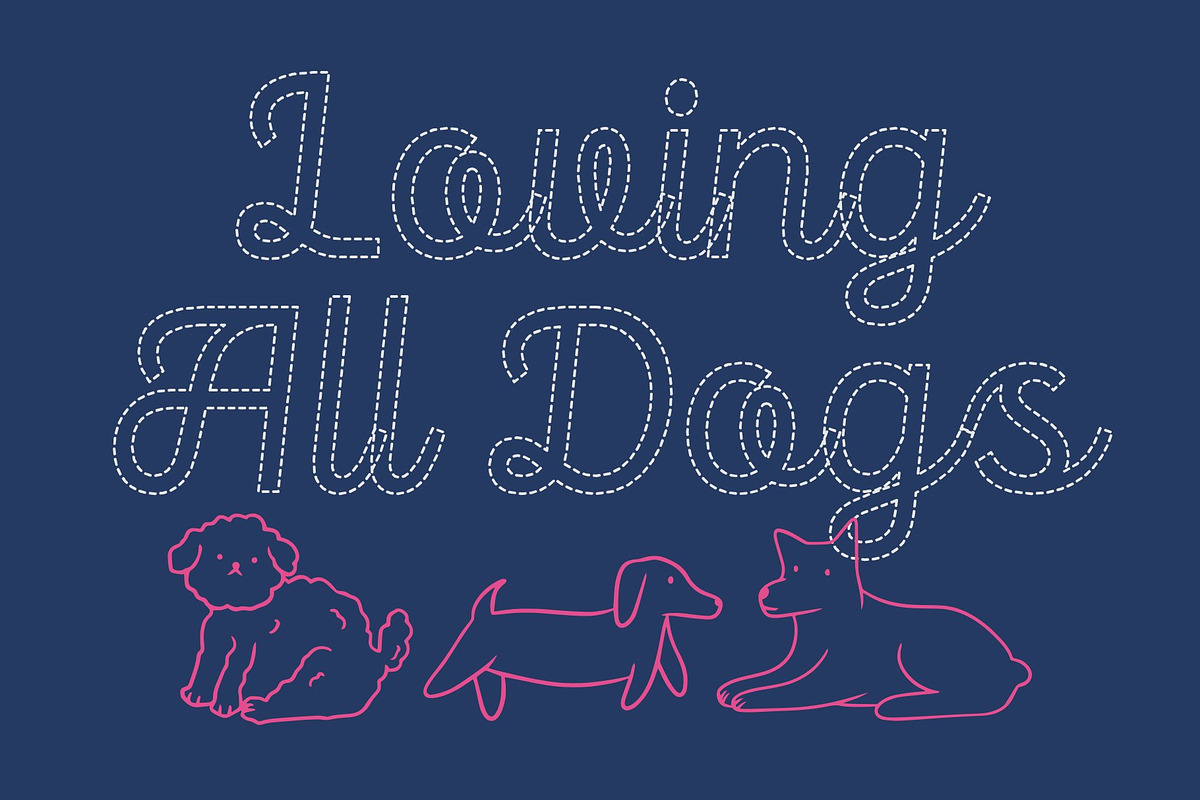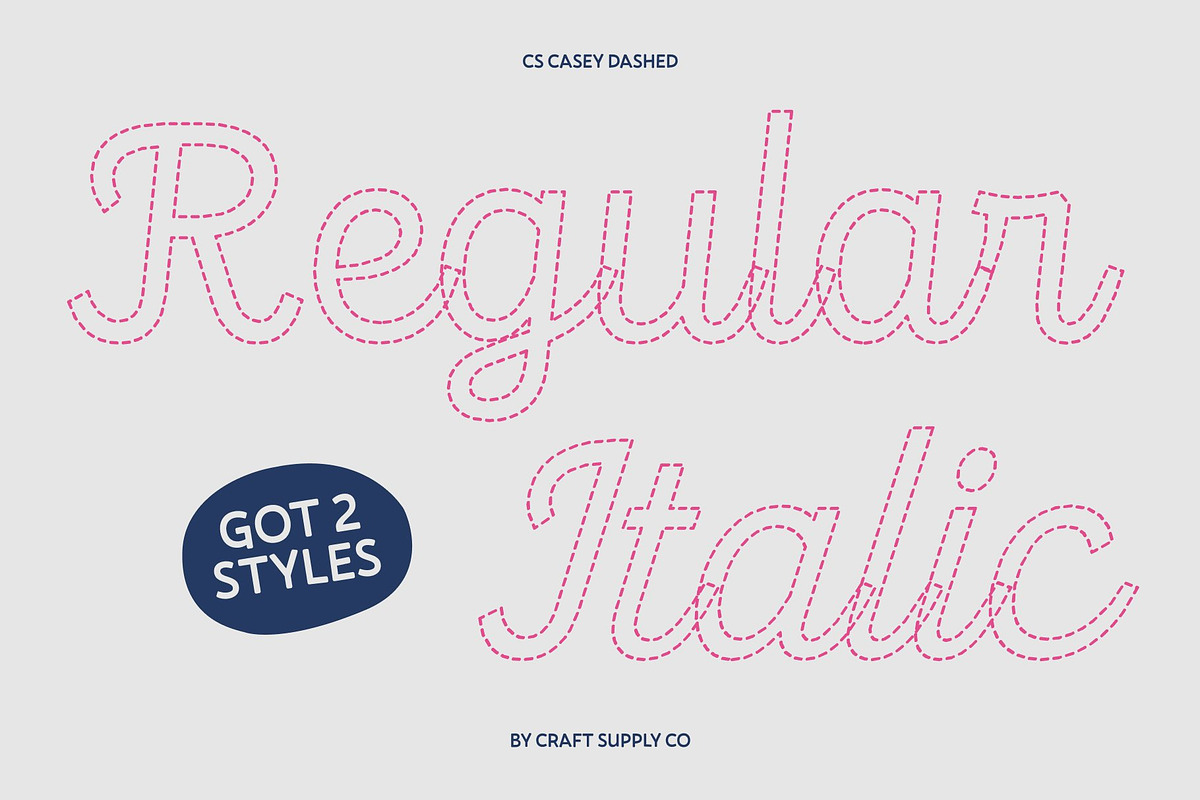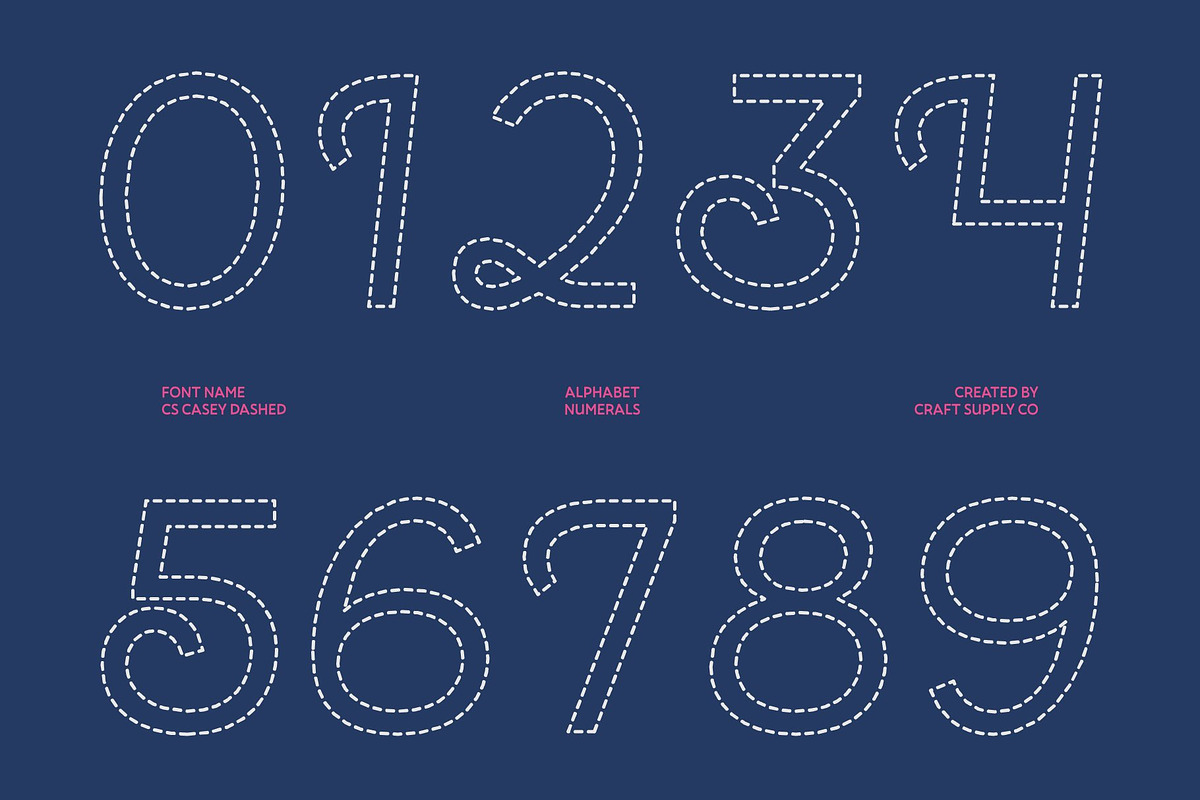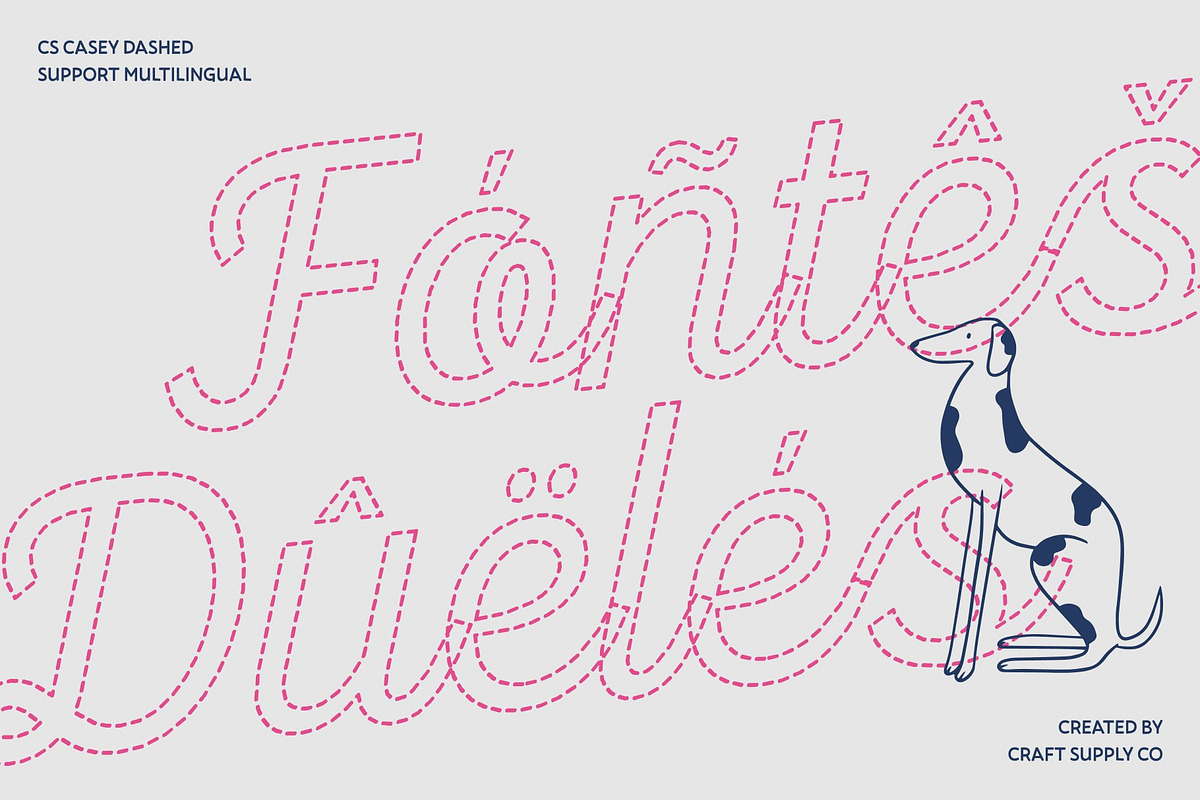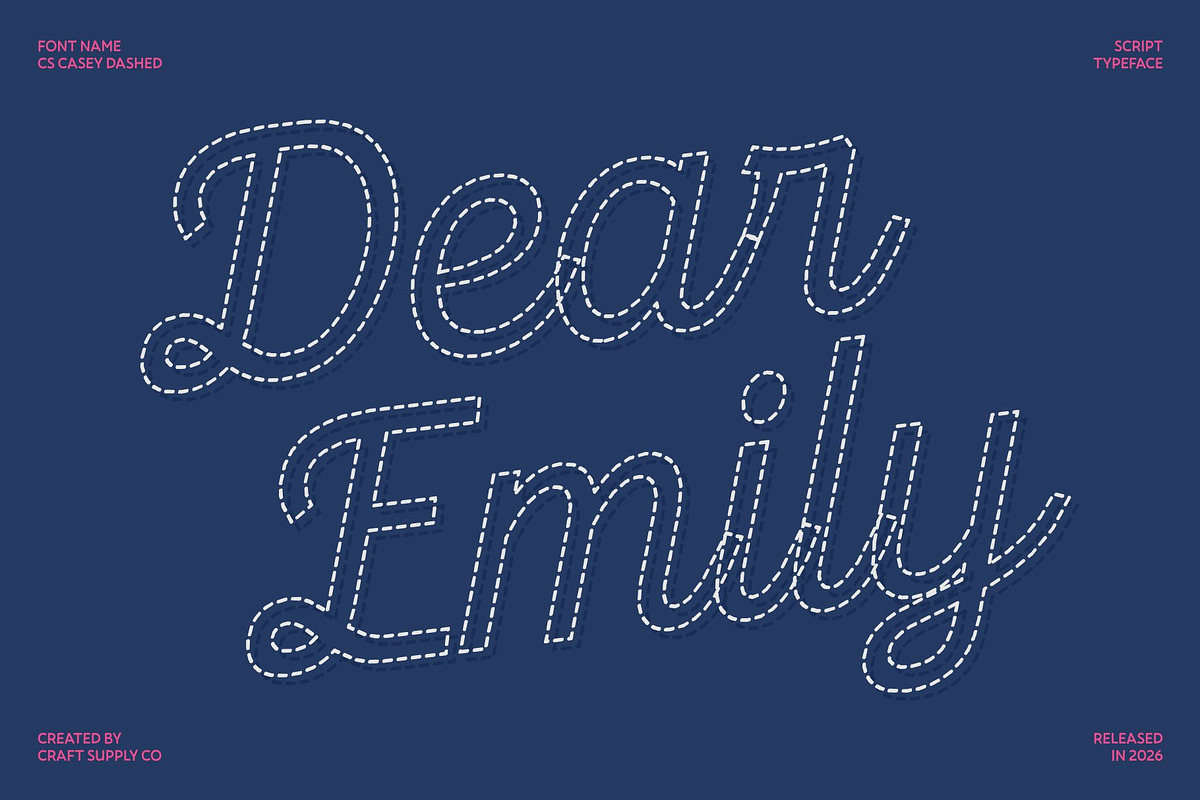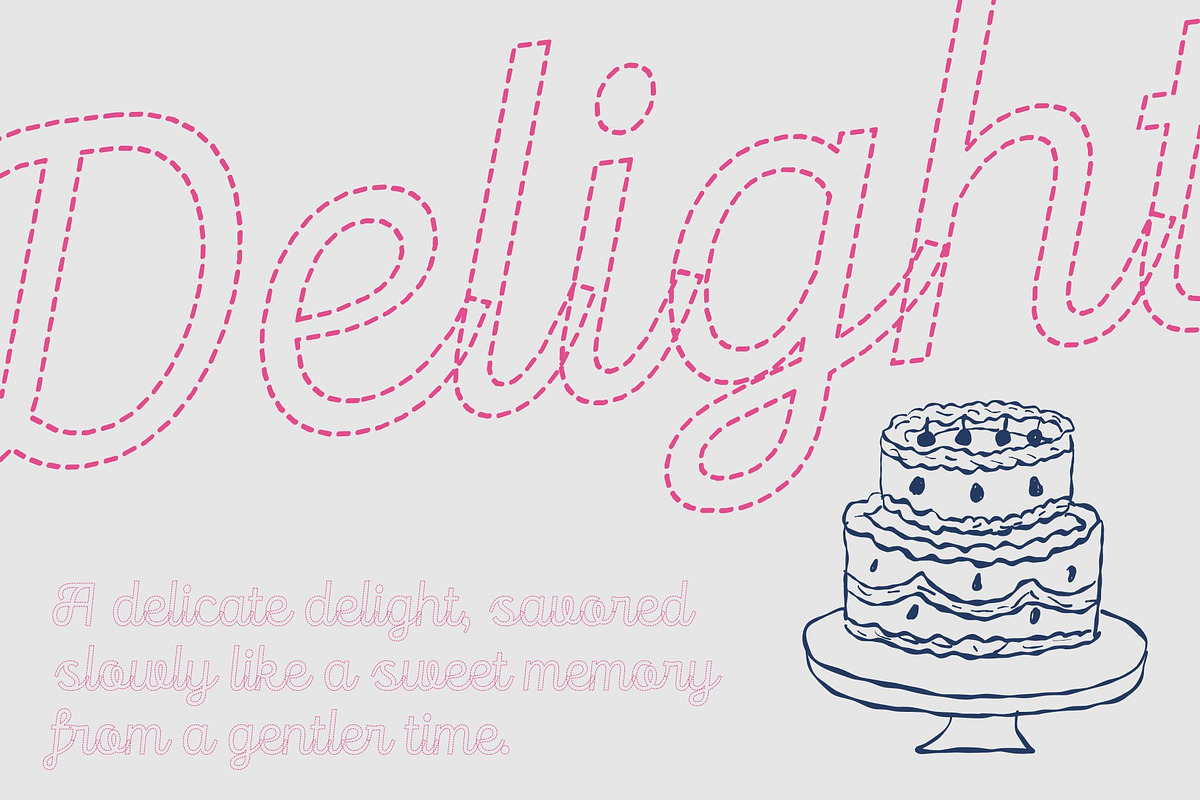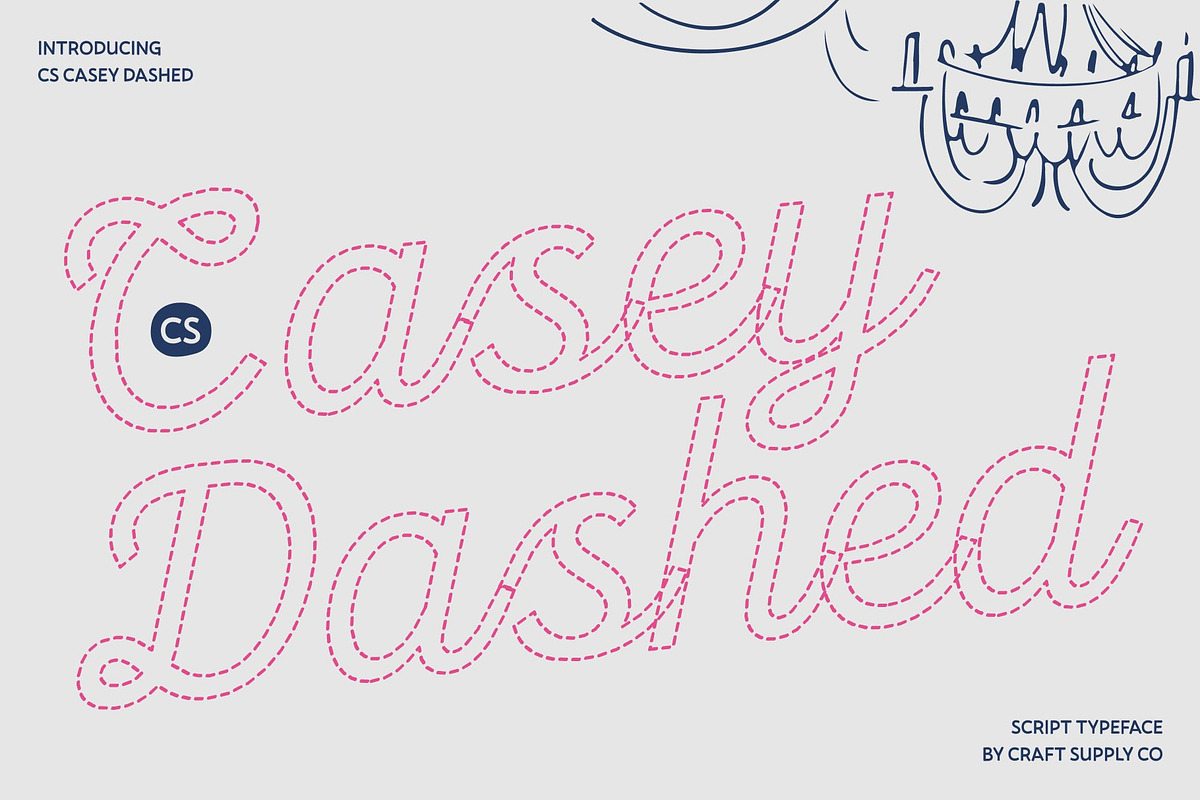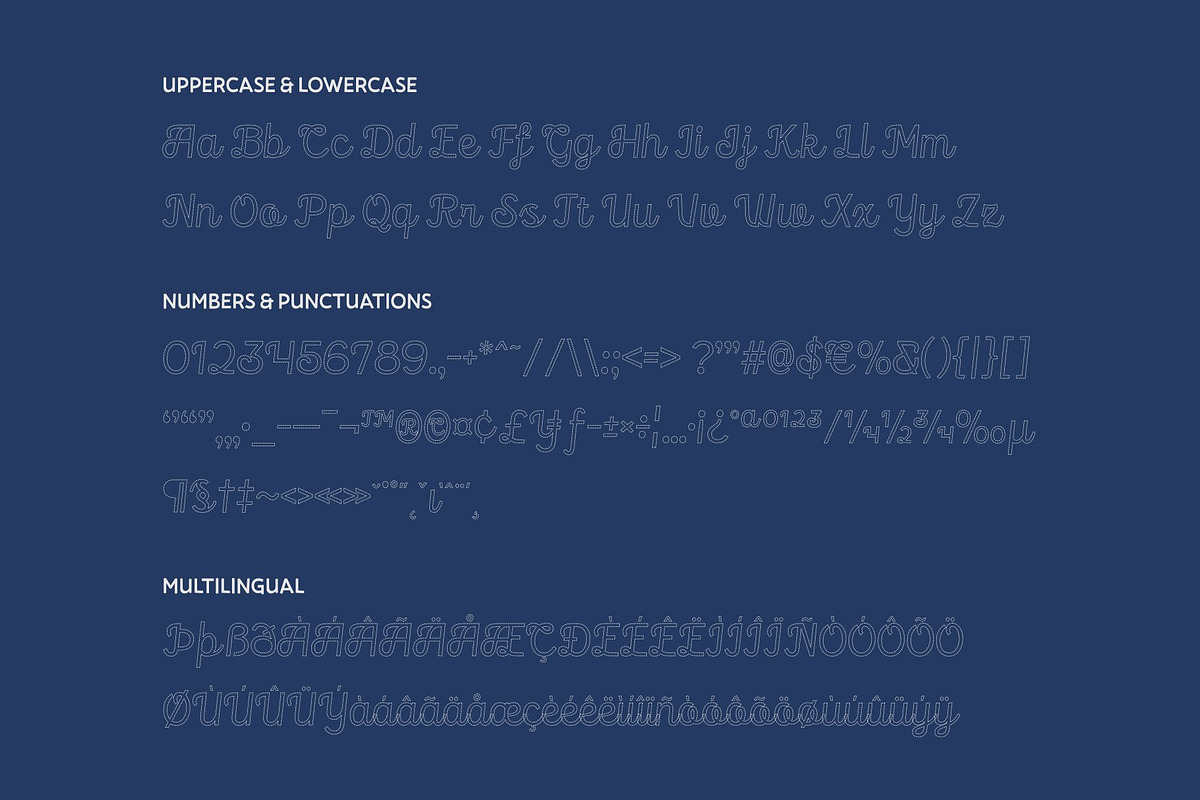
CS Casey Dashed
CS Casey Dashed – Script Font: Sweet Simplicity with Modern Elegance
Clean and Contemporary Handwritten Style This is a modern script font with a refined, minimalist dashed style. Its clean, broken strokes create a soft, airy flow while maintaining structure and readability. This gives your designs a fresh, contemporary feel with a subtle handcrafted charm.
Delicate Strokes for Feminine and Charming Designs Each letter features gentle, flowing dashed lines that feel personal yet polished. The light, rhythmic breaks add a playful sophistication, making it perfect for feminine, elegant, and approachable visuals. This font brings warmth and style to every layout without feeling heavy or ornate.
Ideal for Beauty, Lifestyle, and Trendy Branding Perfect for beauty branding, fashion labels, café menus, wedding stationery, or lifestyle projects, this font adds an emotional and aesthetic touch. Its soft dashed texture gives a modern, creative edge while retaining the charm of handwritten lettering.
Versatile and Aesthetic Across Creative Applications From social media graphics and minimalist logos to invitations and packaging, this font adapts seamlessly to a variety of designs. Its blend of readability, delicate elegance, and playful dashed style makes it a go-to font for projects that aim to feel personal, stylish, and visually inviting.
CS Casey Dashed Regular
CS Casey Dashed Italic